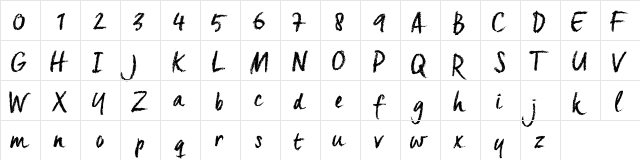
Creta_TRIAL Font Preview
Creta_TRIAL Creta_TRIAL
Creta_TRIAL Font Details
| Style | Creta_TRIAL |
| Foundry | GEERT @ JOEBOB Graphics |
| Designer | Geert Dijkers |
Design Context for Creta_TRIAL Typeface
Creta_TRIAL is a composed and adaptable typeface that performs quietly and consistently across a wide range of design contexts.